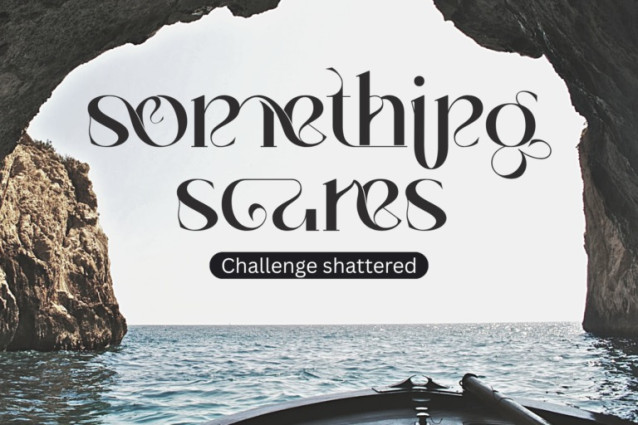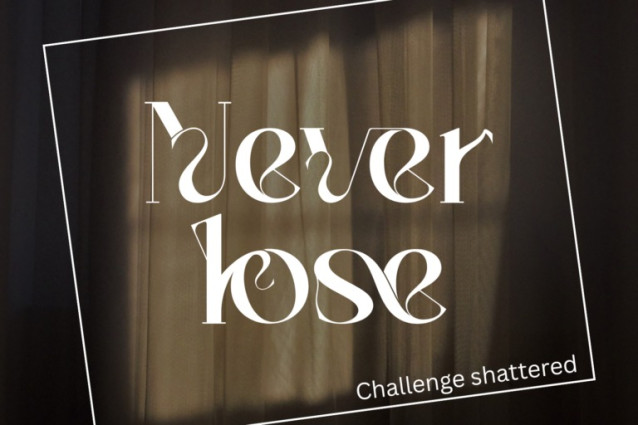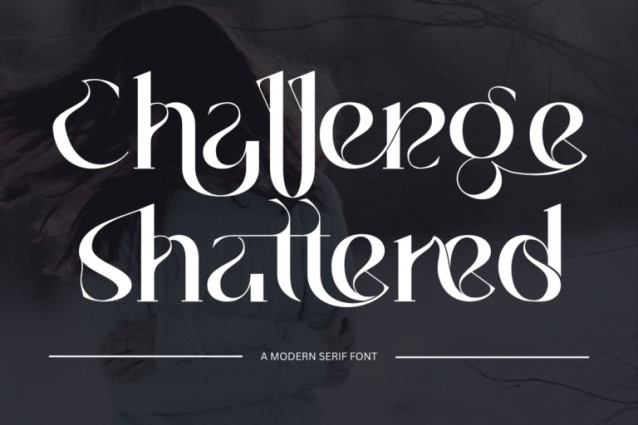
Challenge shattered Font
Challenge shattered – Modern Serif Font – A Dramatic & Ornamental Display Serif, a refined and expressive display serif font designed to captivate. With its high-contrast strokes, intricate curves, and ornate ligatures, this typeface brings elegance and personality to every word it forms. Inspired by classical calligraphy and infused with a modern Art Nouveau spirit, each character dances with flourish and finesse.
This font is perfect for branding, editorial design, posters, book covers, fashion lookbooks, or anything that demands visual sophistication and flair.
Features:
Uppercase & Lowercase Letters
Around 100 Special Ligatures
Multilingual Support with Accented Characters
About 100 ligatures combined with Stylistic Alternates Font: